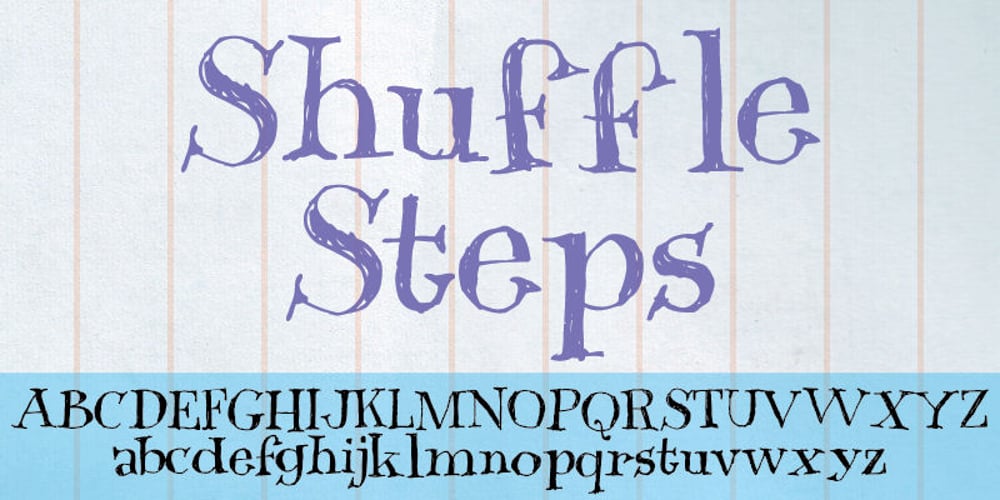
Shuffle Steps Font Family was designed by Jakob Fischer and published by PizzaDude.dk. Shuffle Steps contains 1 styles and family package options. A sort of latin inspired and hand scribbled font. Comes with ligatures for double letters. You will need to use OpenType supporting applications to use the auto-ligatures.